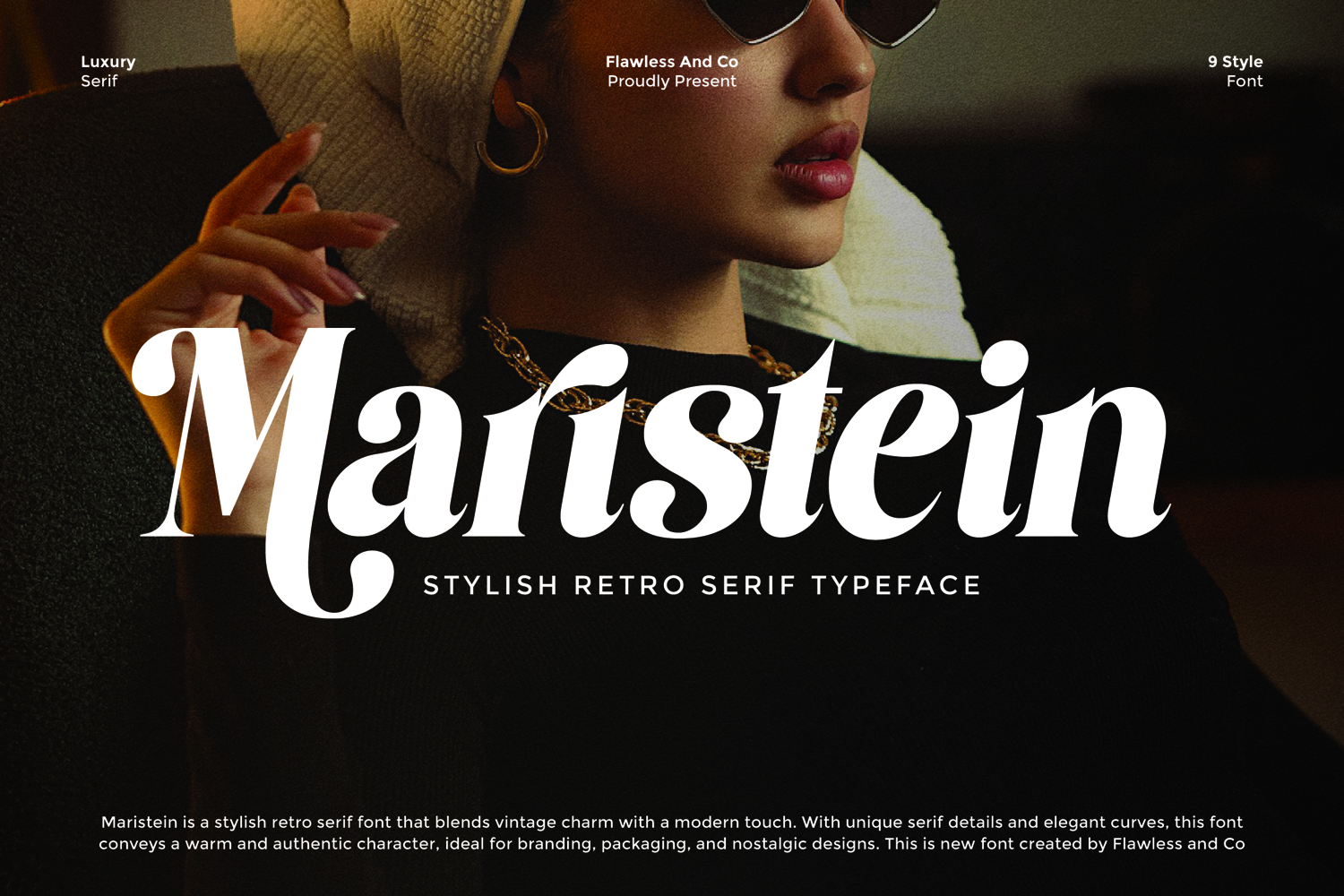
Maristein - Retro Serif Font
Maristein is a stylish retro serif font that perfectly blends vintage aesthetics with a fresh modern twist. Featuring bold serif details and graceful curves, this font radiates elegance while keeping a nostalgic charm. Its distinctive character makes it a versatile choice for branding, logos, packaging, and editorial designs that need a touch of sophistication and personality.
- Alternates & Ligatures
- Numerals & Punctuation
Who Should Use Maristein?
Maristein is designed for creatives, designers, and brands who want to capture both elegance and retro charm in their work. This font is perfect for:
- Branding experts & logo designers seeking a stylish retro serif
- Packaging designers aiming for nostalgic yet modern appeal
- Editorial & magazine creators who want bold, sophisticated headlines
- Lifestyle & fashion brands looking to enhance their visual idntity
- Creative agencies and studios in need of timeless, versatile typography
A Must-Have Font for "Brand and Logo" Creators and Designers
Maristein stands out as the ultimate choice for brand builders and logo creators who seek a stylish retro serif with modern elegance. Its unique curves and timeless character make it an essential font for crafting distinctive brand identities, memorable logos, and impactful visual designs.
Suitable For:
- Brand identities & professional logo design
- Luxury packaging and product labels
- Editorial, magazine & book covers
- Fashion, lifestyle & creative branding
- Posters, signage & advertising projects
- Social media content & marketing visuals
- Vintage-inspired merchandise & stationery